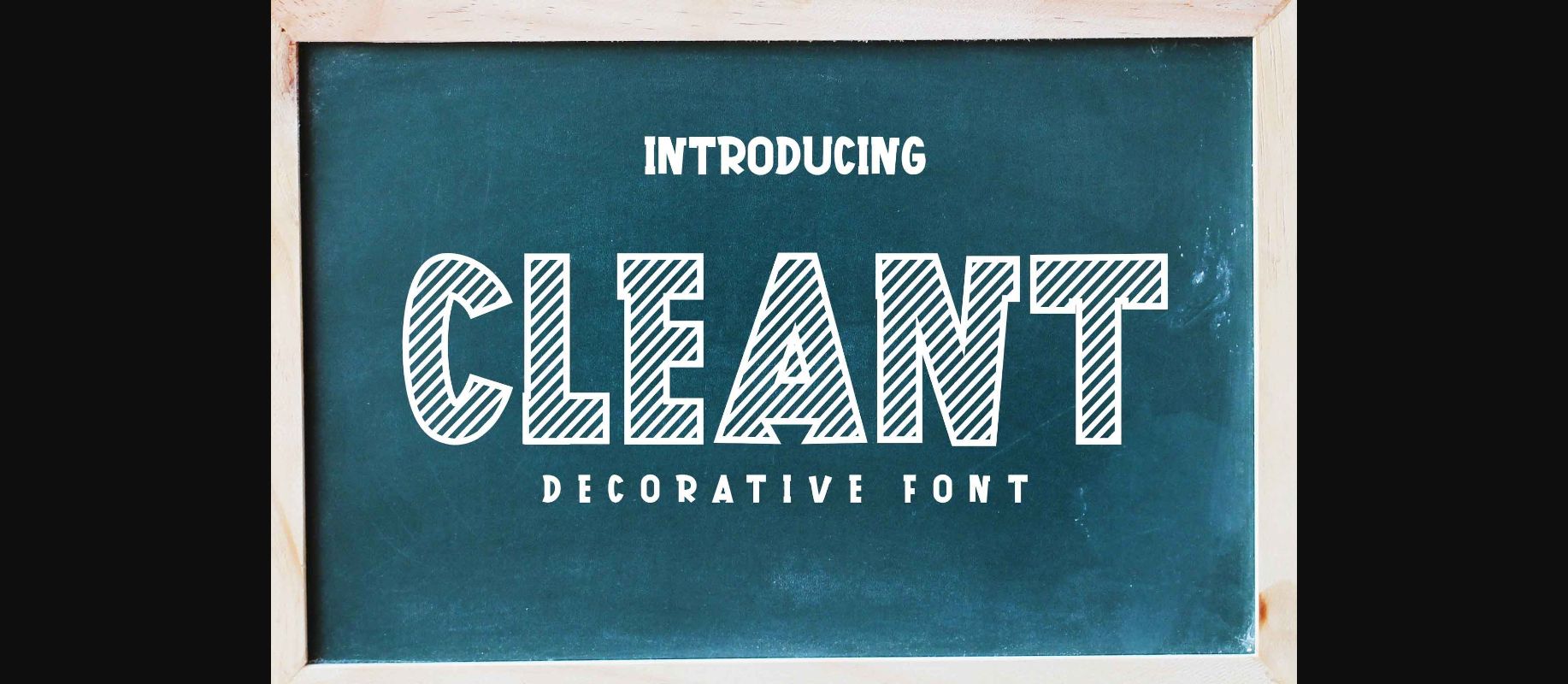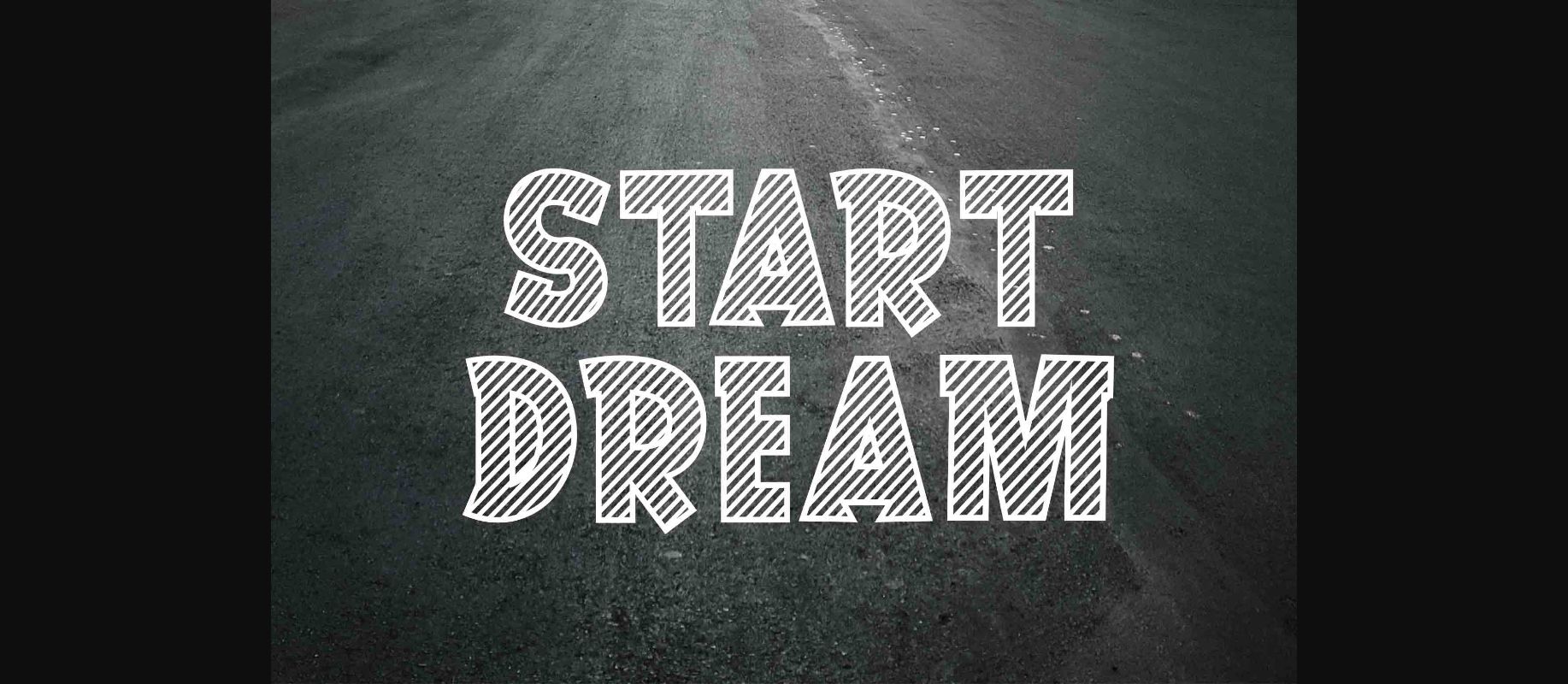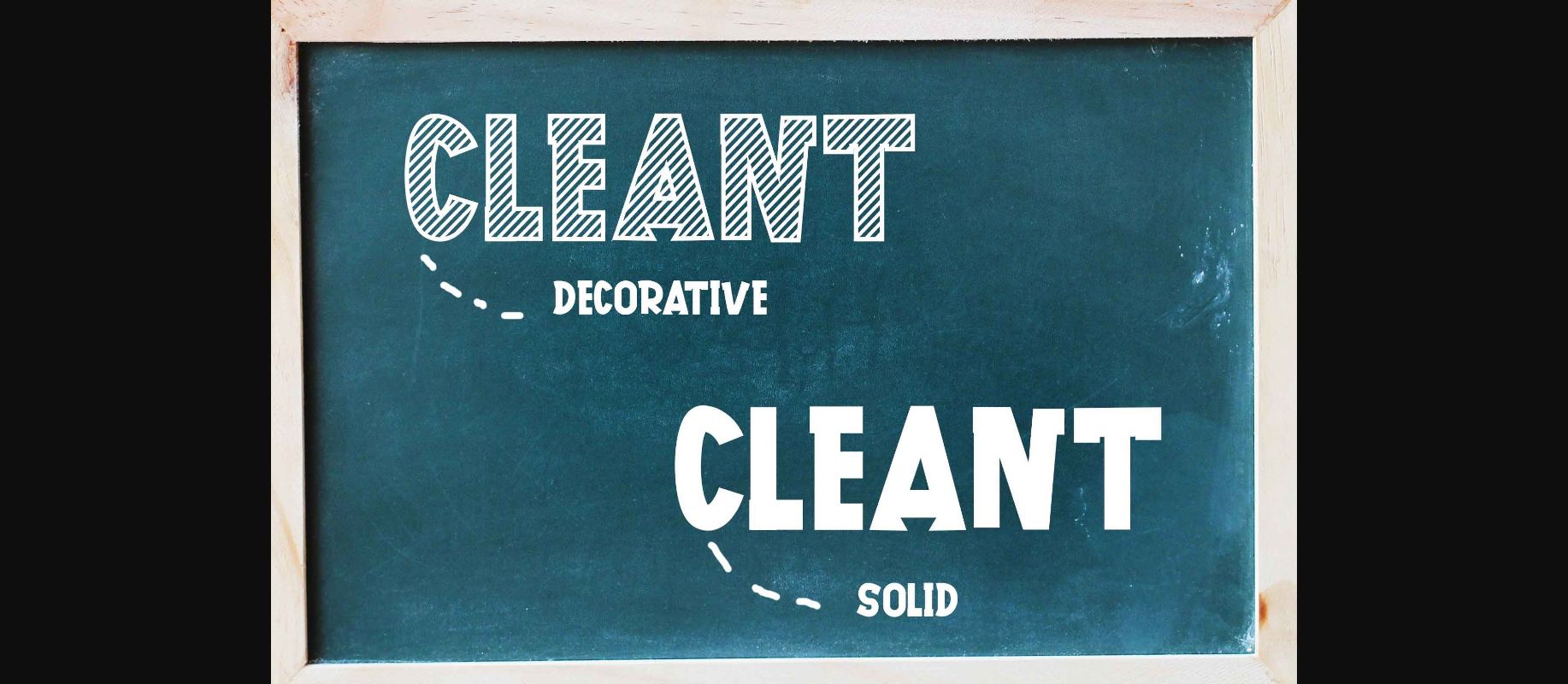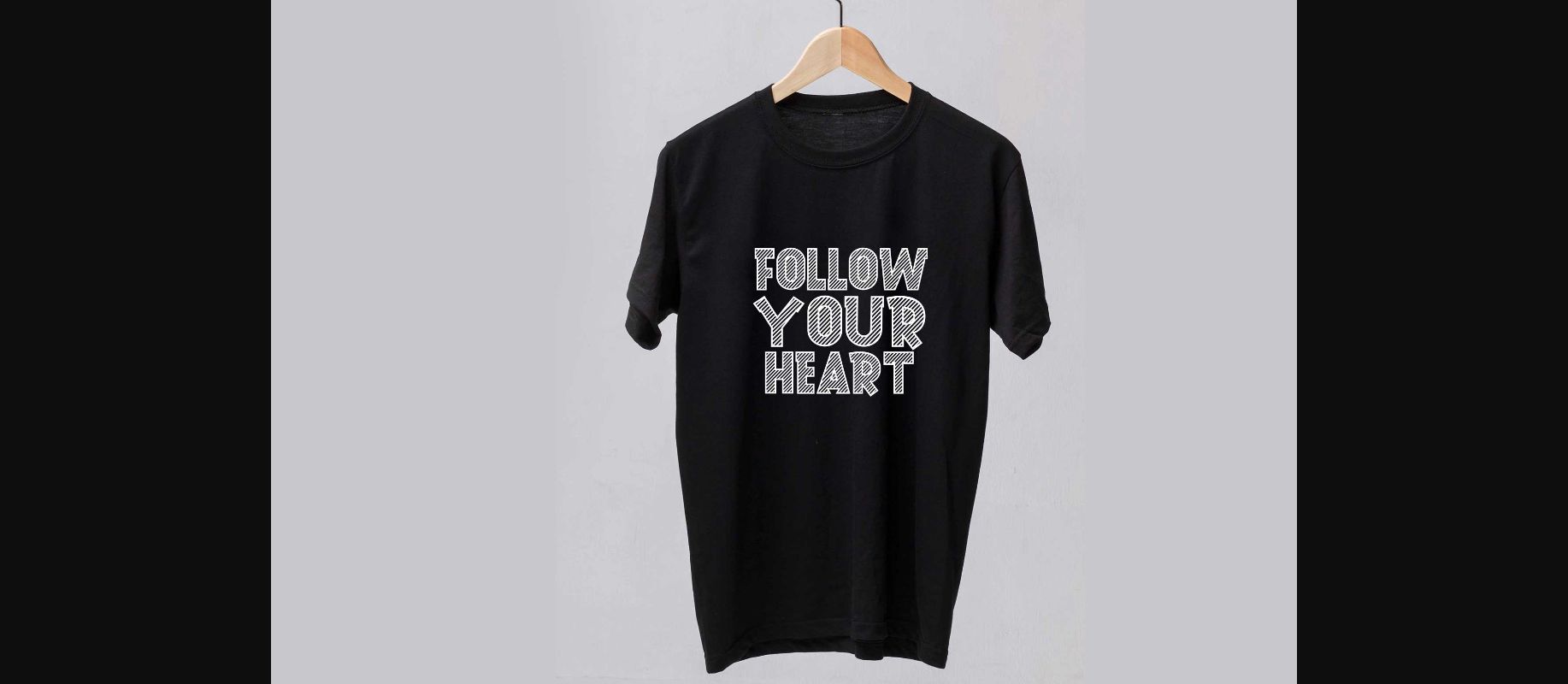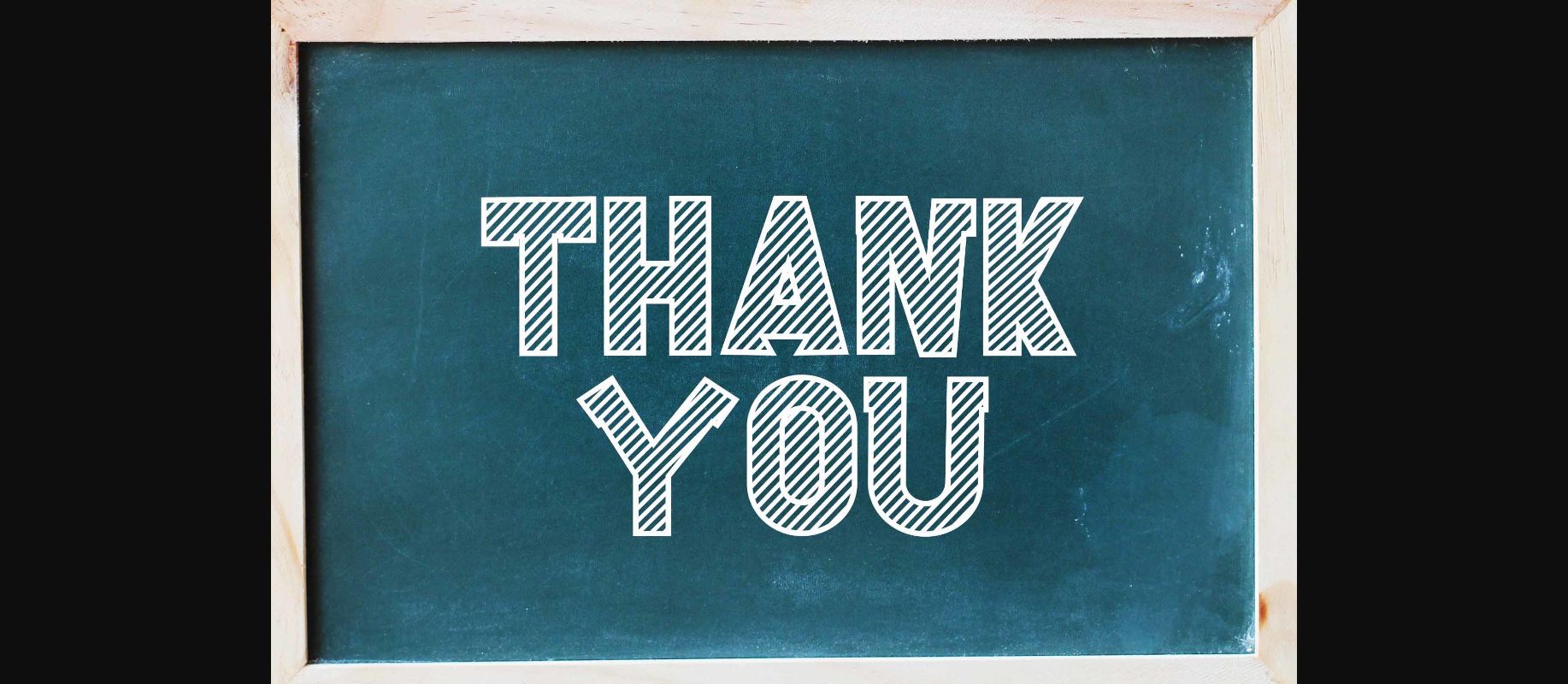
About Cleant Font
Cleant is a decorative font with a clean and elegant look. Add it to your own design to make it look cool and fun. It looks great on any project or techno creation that needs a modern touch. This font has the power to elevate your work to its highest level!